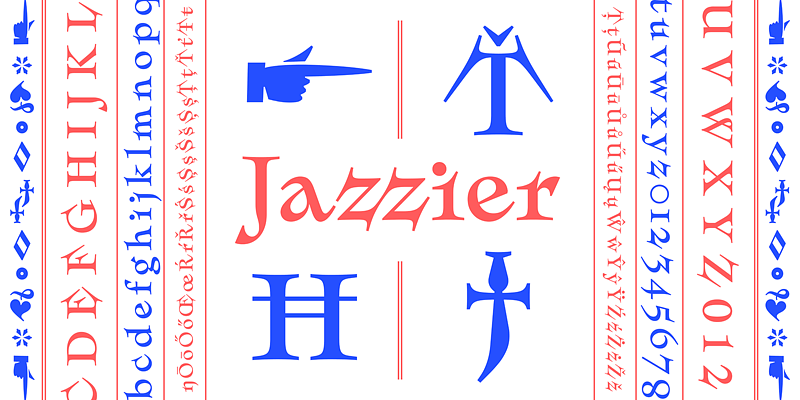
Jazzier Font Free Download
Jazzier Font Free Download is a lively and expressive display typeface that captures the rhythm, flair, and improvisational spirit of jazz music. With its bold curves, playful angles, and retro-modern style, this font is perfect for music posters, album covers, nightlife branding, vintage-themed designs, and any project that needs a touch of bold personality and visual groove.
Jazzier Font Free Download stands out with its artistic letterforms and energetic flow, making it ideal for large headlines, creative logos, and stylish advertising. It evokes a nostalgic feel while staying fresh and modern—great for projects that aim to blend old-school cool with contemporary design.
Whether you're designing for a music festival, a boutique label, or creative merchandise, Jazzier brings emotion, movement, and unmistakable character. It also pairs well with clean sans-serifs or textured backgrounds for a dynamic contrast that pops off the page.